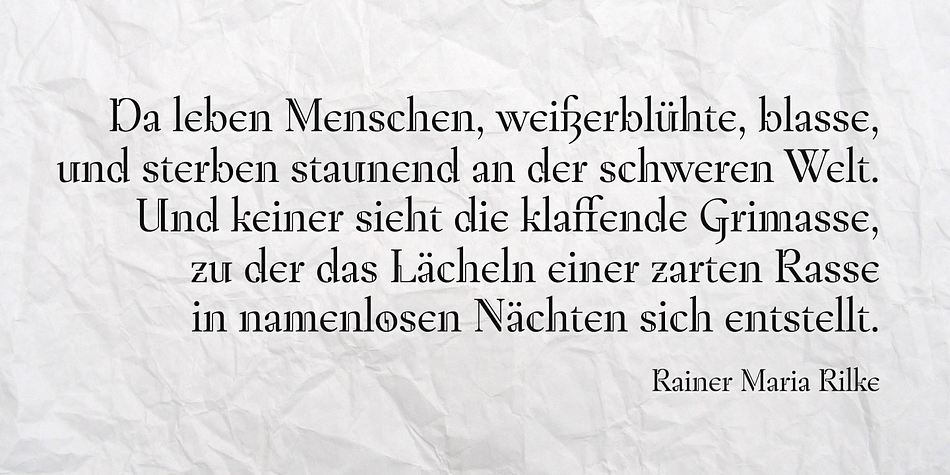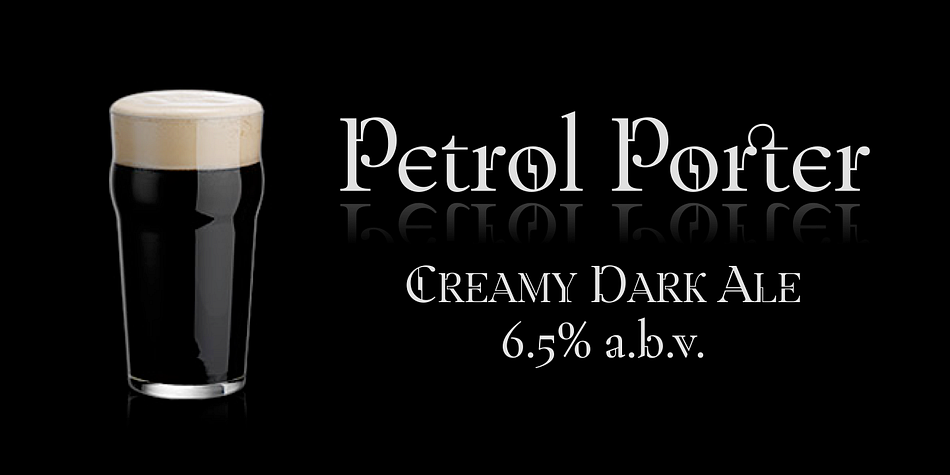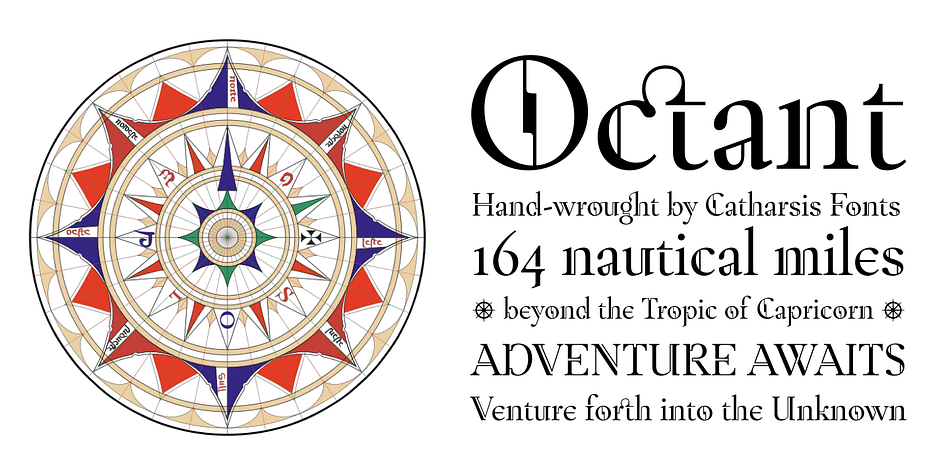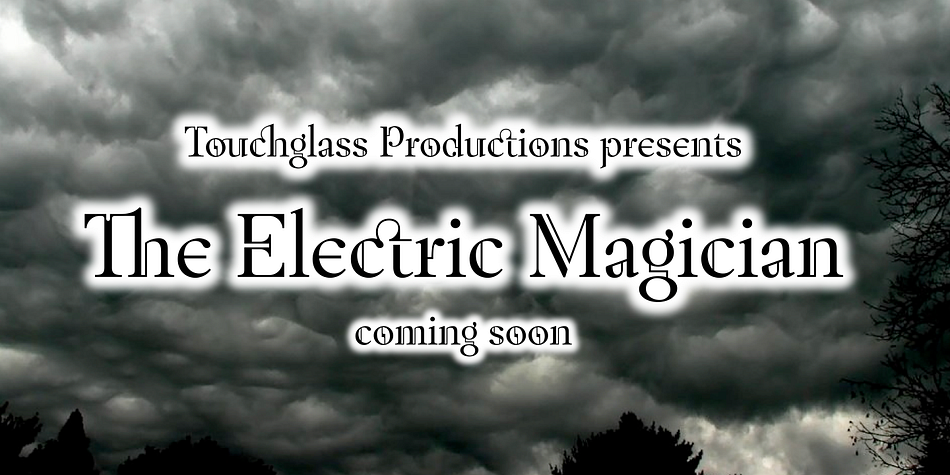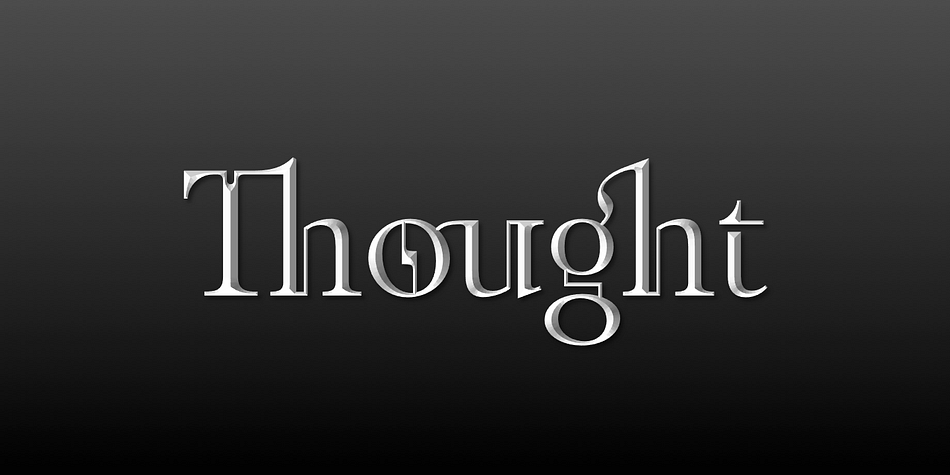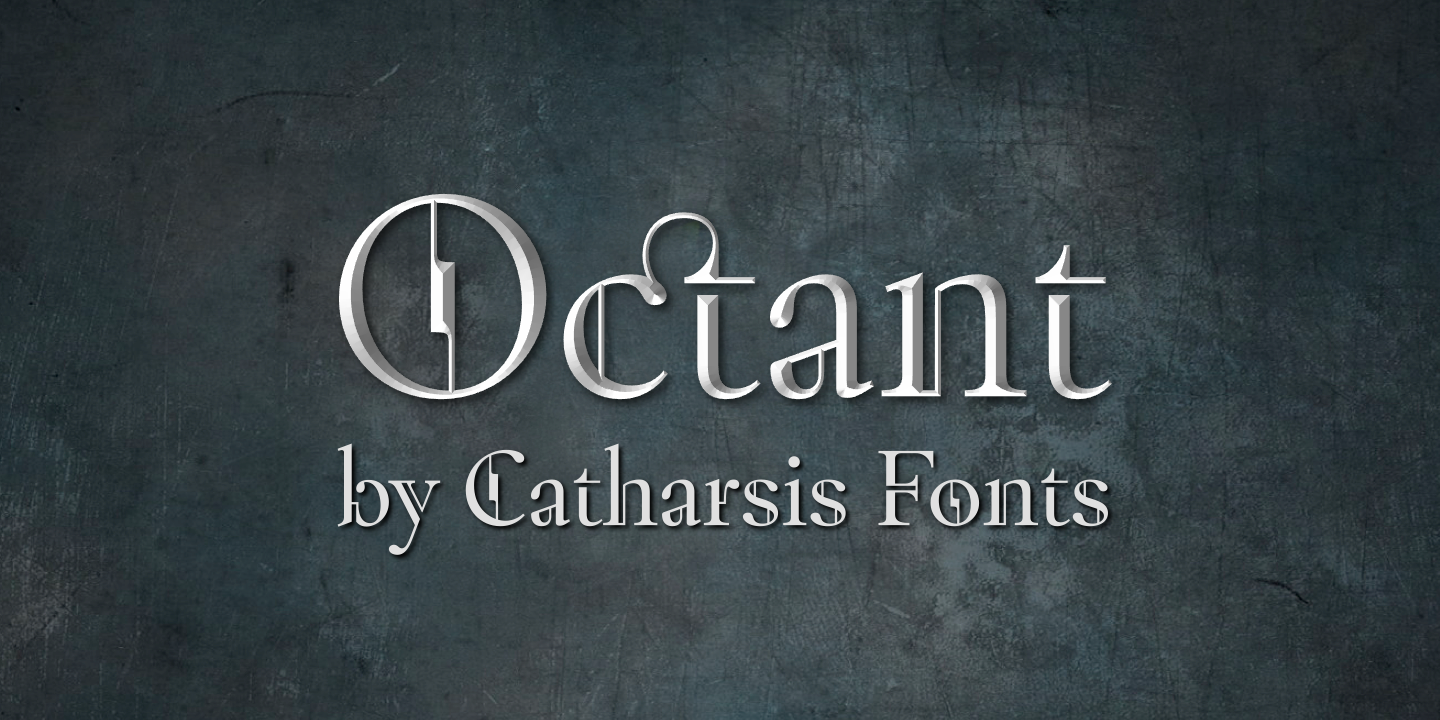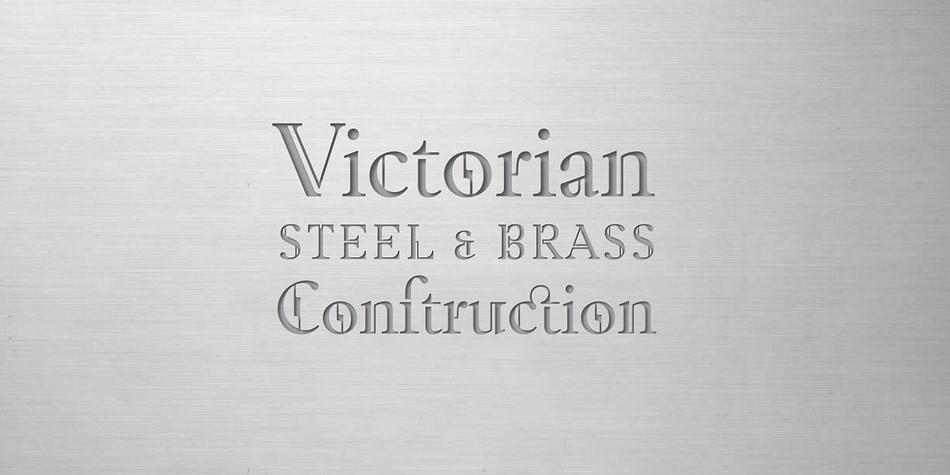
Octant is a display serif font family. This typeface has two styles and was published by Catharsis Fonts.
Octant is an original display typeface drawing inspiration from Victorian-age steel and brass engineering, as well as from blackletter typography. Despite its many innovative departures from traditional letter architecture at the detail level, its overall shape is based on the familiar timeless proportions of humanist serif tradition, which renders it easily legible.
While Octant shines in display roles, it also performs well in short texts such as poetry or block quotes. Apart from serving as a fresh alternative to blackletter, it evokes hand-crafted metalwork, daring feats of engineering and innovation, and adventurous journeys on airships and sailboats. Thanks to its unique and unmistakable look, it delivers a memorable impact in any role.
Octant comes with extensive language support and a generous collection of ligatures. For ease of use in typographically unsavvy applications (such as PowerPoint), the distribution includes an alternate version of the font («Octant Ligatures») in which all ligatures are encoded as standard rather than discretionary.